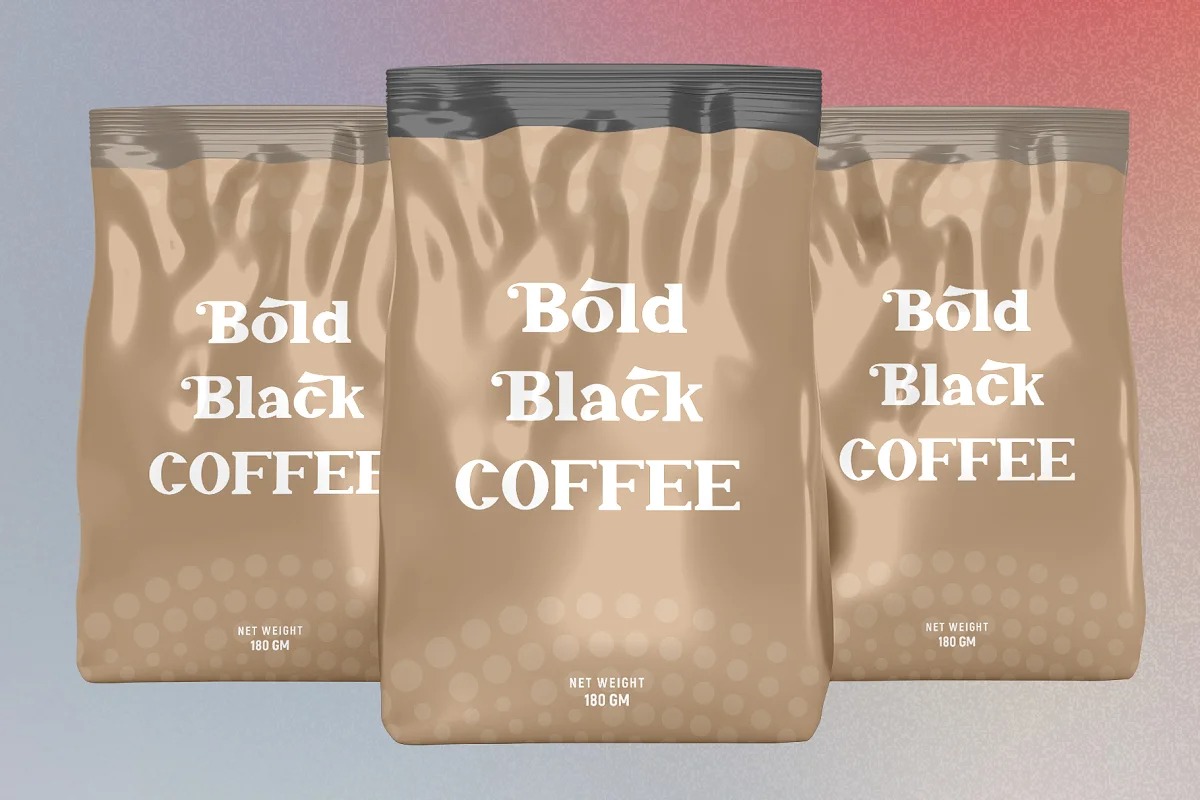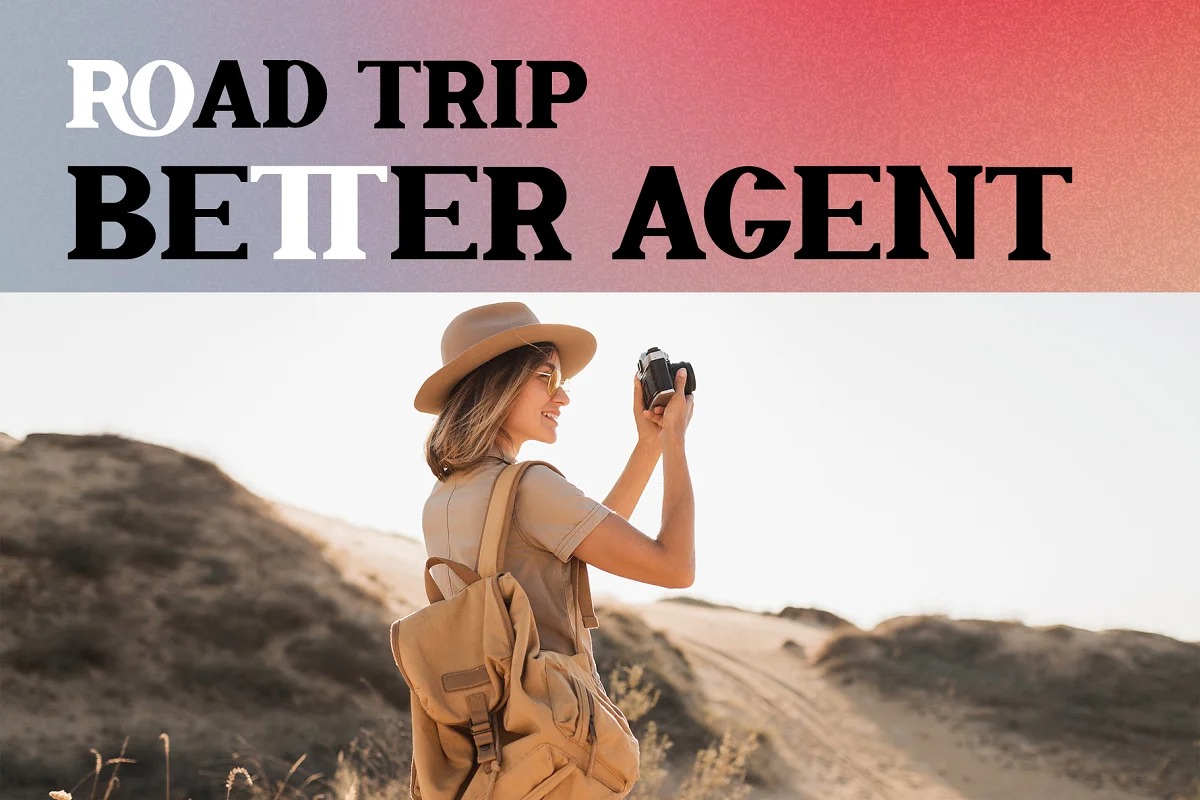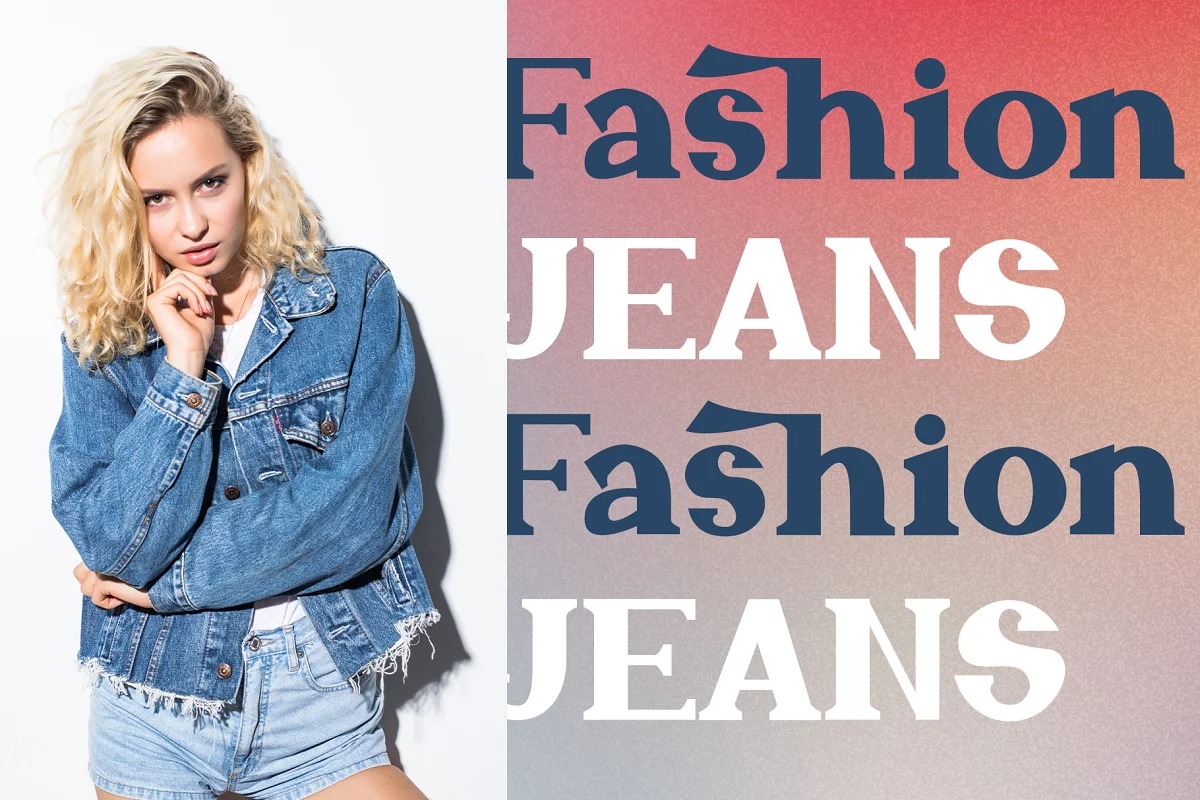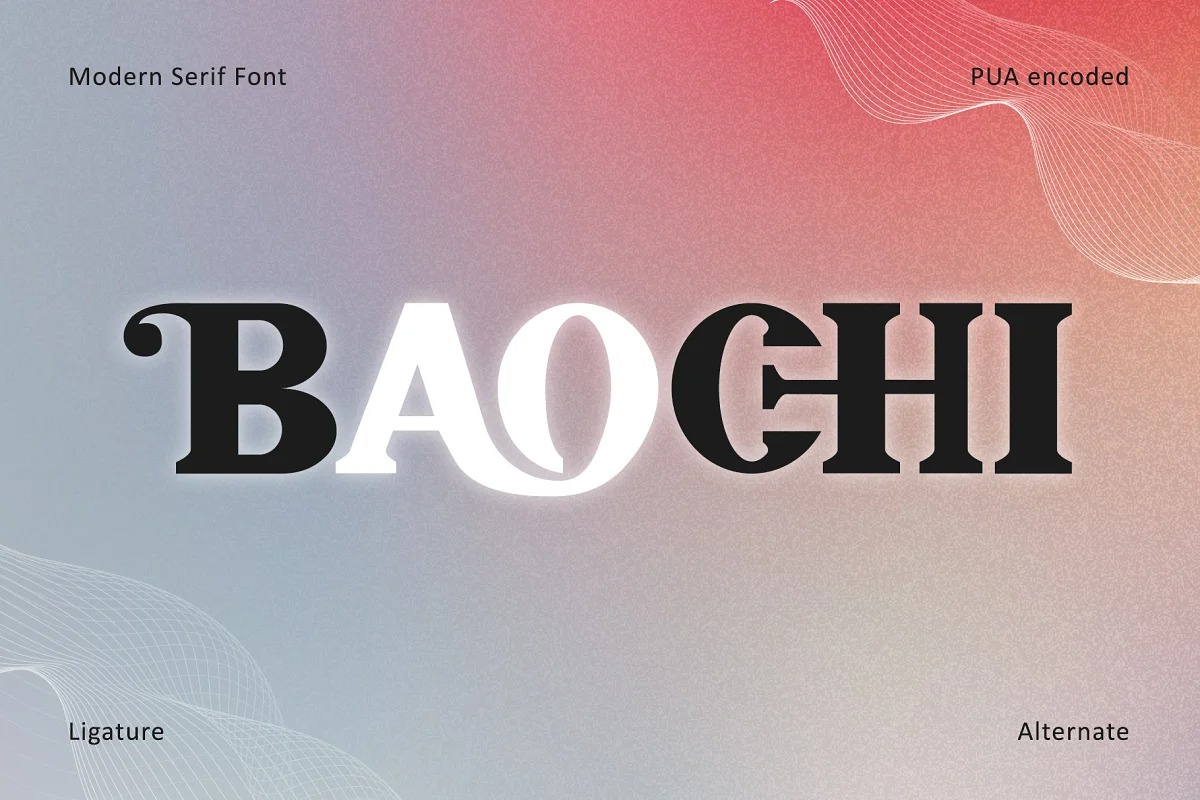
Baochi Serif Font is an elegant display typeface with flared serif. Made from font designer named Thomas Aradea. It is suitable for a wide variety of designs due to its unique, and cool style. this font is great for headlines, logos, magazines, Packaging, covers, posters, and other creative designs. This font is PUA encoded, meaning you can access all of the glyphs.